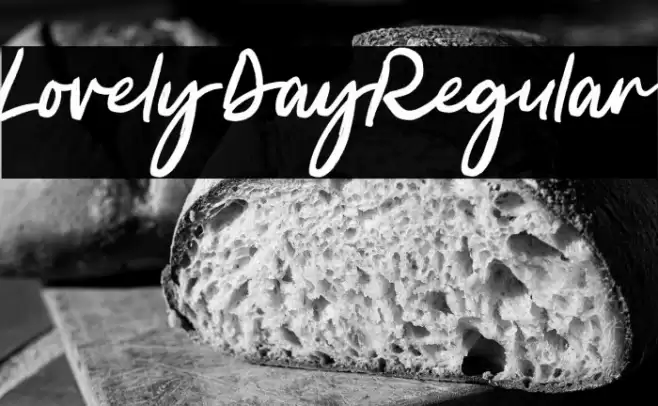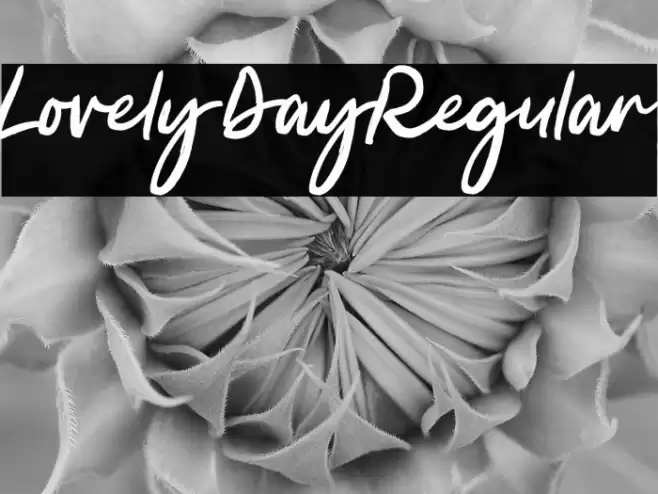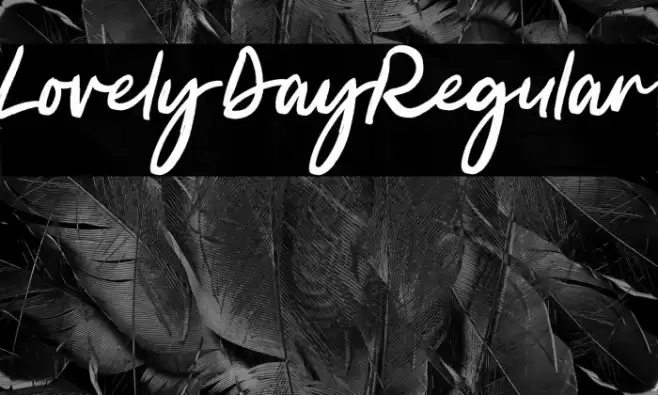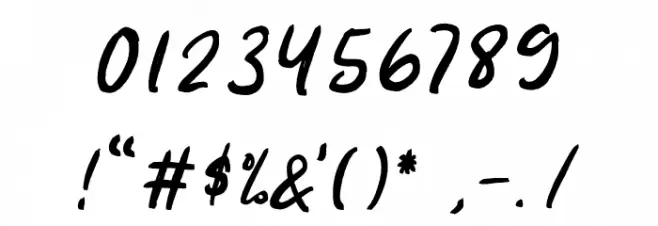
LovelyDayRegular Font
LovelyDayRegular Description
This font exudes a casual and playful handwritten style, characterized by its fluid and dynamic strokes. The letters are slightly slanted, giving it an informal and approachable feel. The uppercase letters are bold and prominent, while the lowercase letters maintain a consistent flow, enhancing readability. The numerals are clear and distinct, matching the overall style of the alphabet. Special characters are well-integrated, maintaining the same lively and energetic appearance. This font is perfect for projects that require a personal touch, such as invitations, greeting cards, or branding materials that aim to convey warmth and friendliness.
A playful and dynamic handwritten font with fluid strokes from Uncategorized fonts.
- Proposed Projects: Ideal for invitations, greeting cards, personal branding, and creative projects.
- Overall Style: Casual
- Use Case: Headlines, Logos, Invitations